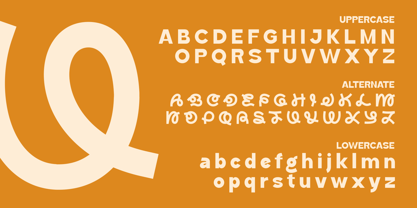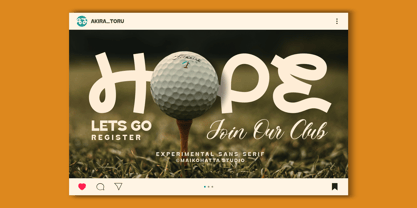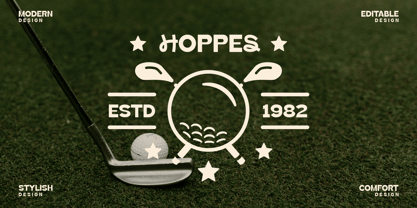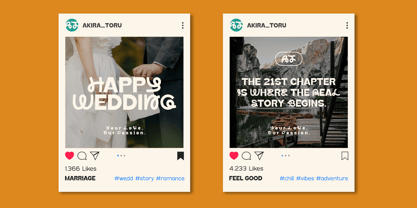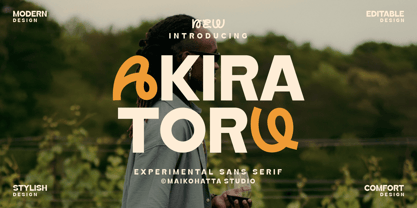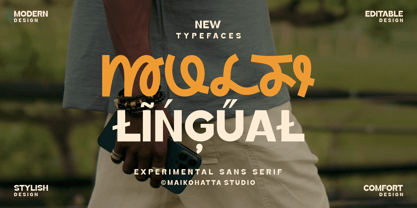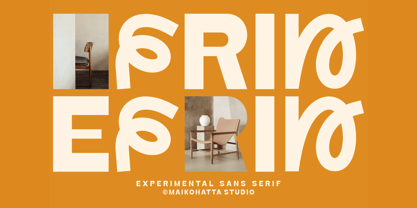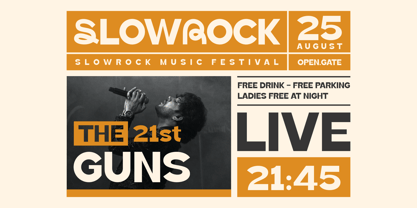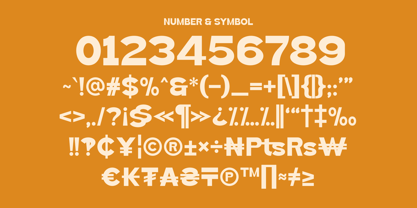
Akira Toru
by Maikohatta
The Akira Toru Font Family was designed by Gilang Ternadho and published by Maikohatta. Akira Toru contains 1 styles.
Introducing our new product Akira Toru - Sans Serif Display Font
This Font is a very flexible choice and can be used in a variety of design contexts. Its ability to provide a clean, professional, contemporary look and its simplicity and visual appeal make this font good for use in the world of graphic design and modern typography.